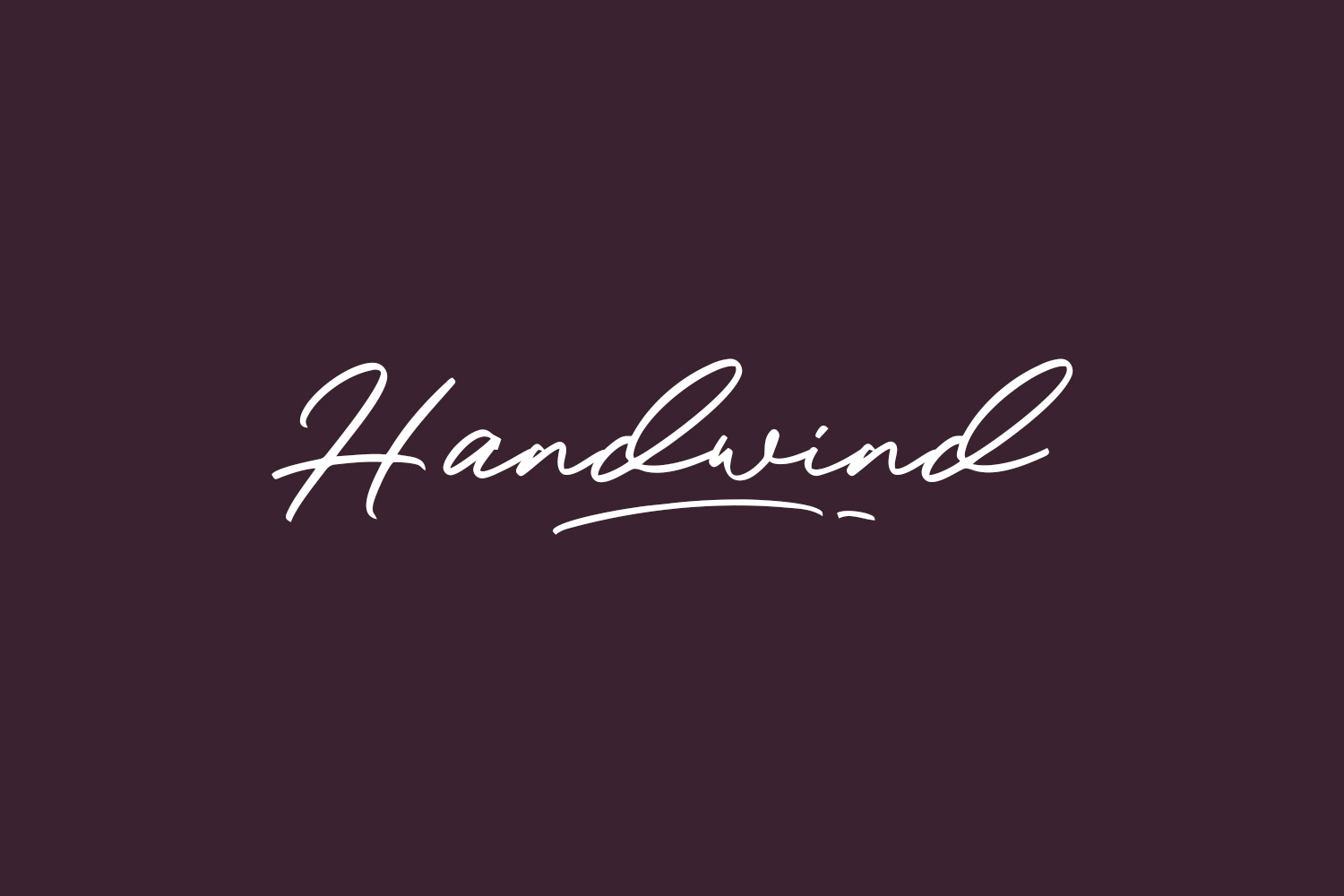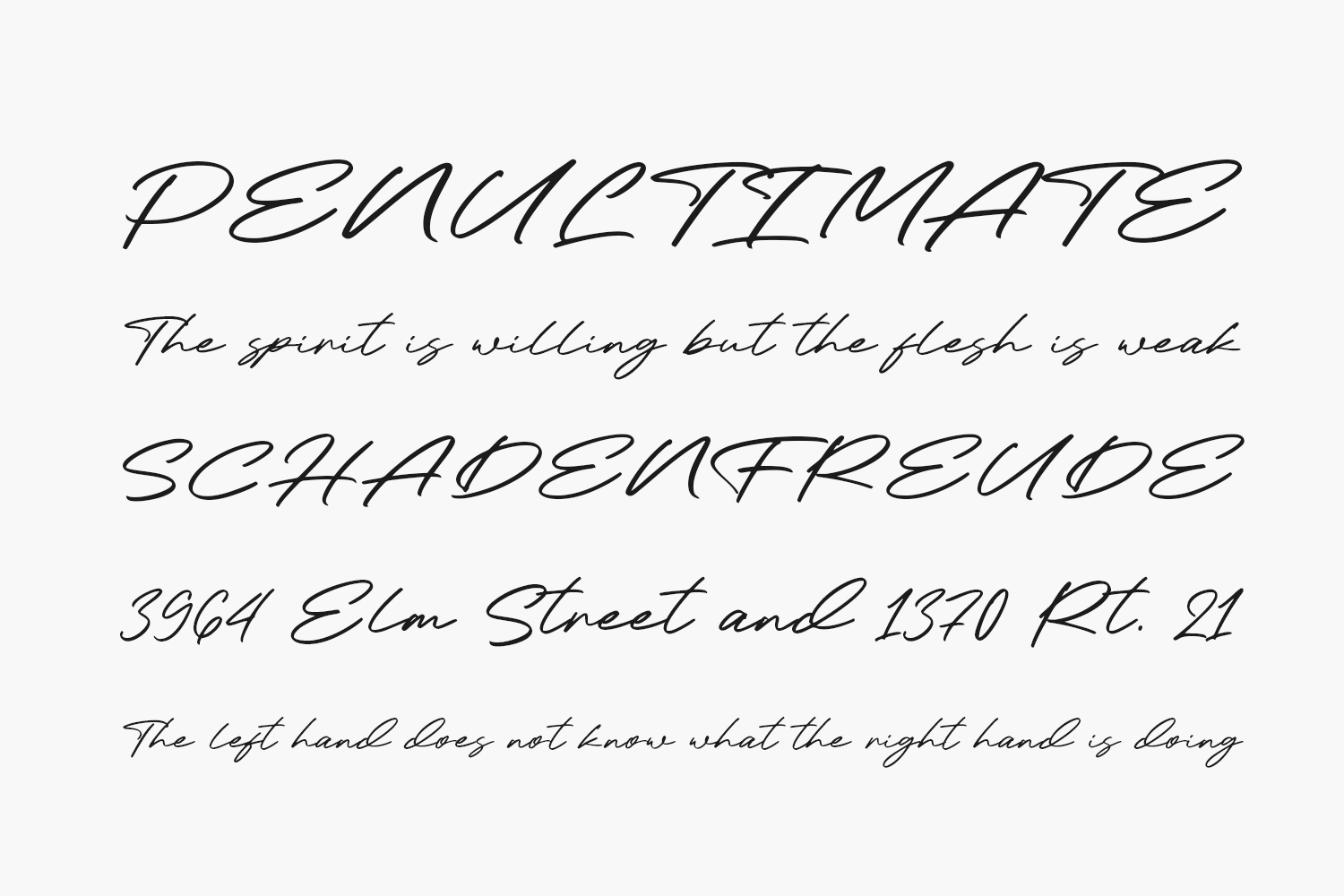
Introducing Handwind Free Font, a sleek, stylish, and modern script font that exudes elegance. Ideal for posters, logos, magazines, book covers, banners, and more, this amazing font is a must-have for creating sophisticated designs. Its versatility ensures a seamless fit across a broad spectrum of projects, so elevate your creative ideas by incorporating Handwind and witness how it effortlessly makes them stand out. Handwind Free Font is free for personal use only. Please purchase the full version for commercial use.